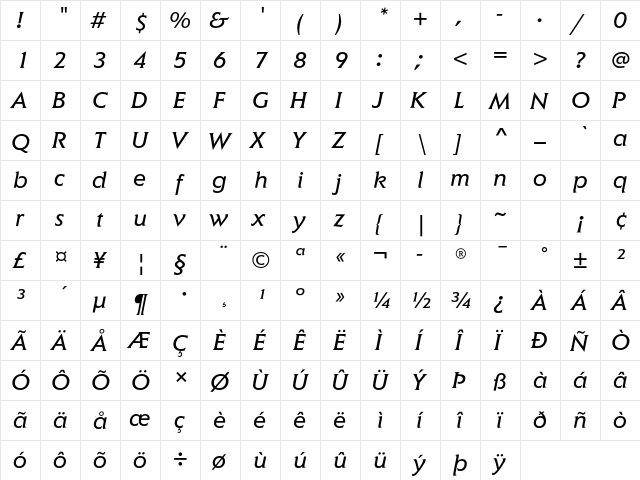
Elan ITC Std Book Italic
| Designer | Albert Boton |
Design Context for Elan ITC Std Typeface
Elan ITC Std offers clean, dependable letterforms without strong stylistic allegiance, making it a practical choice for designers who need flexibility. The slanted form adds forward momentum and visual energy.
Pro Tip: Try Elan ITC Std for annotation and caption copy alongside an upright companion — the contrast in angle creates a dynamic but ordered typographic system.